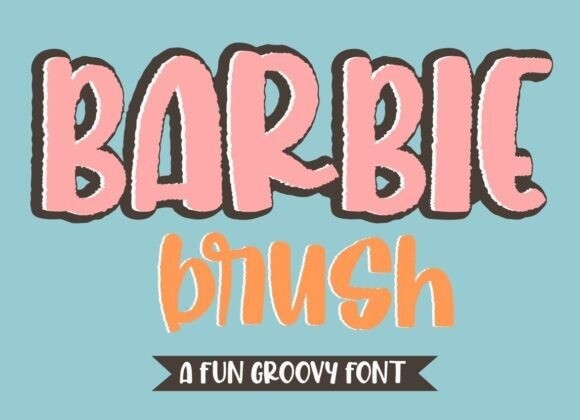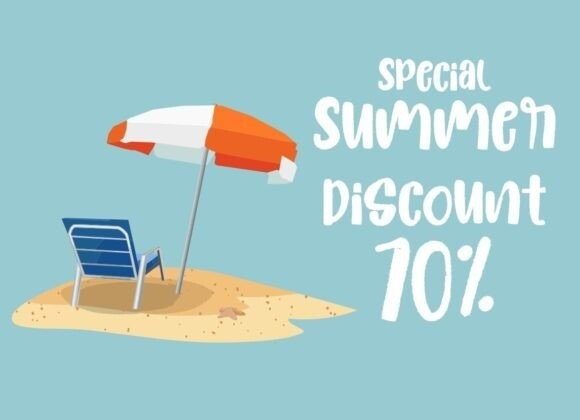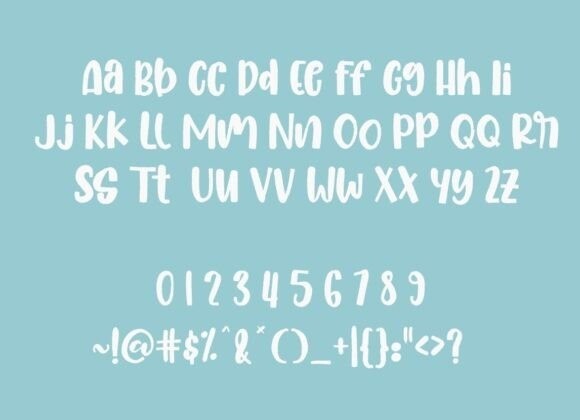
Barbie Brush Font
Barbie Brush Font is bold and expressive font. Its thick and solid lines make it easy to read and its conservative bends aren’t overwhelming on the eyes. A balanced fusion of playful and professional, there are a ton of design projects this font will be perfect for.